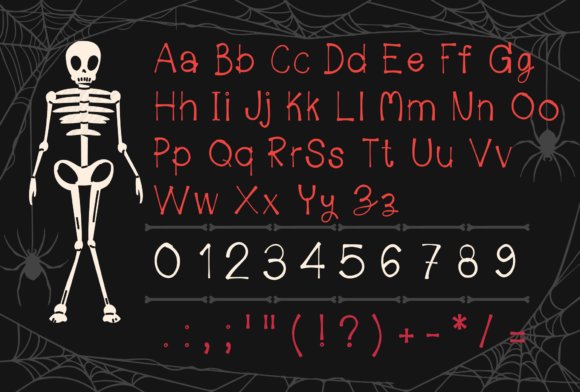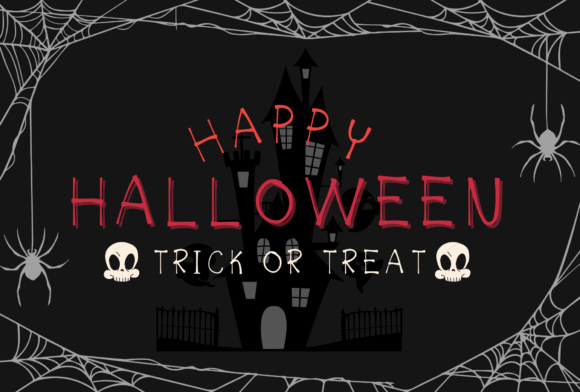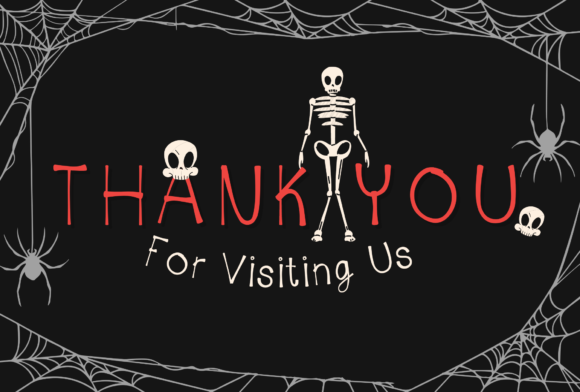
The Spooky Charm of Ghost Bone Font: A Designer’s Delight
I’ll never forget the time I was working on a Halloween-themed project for a client, and I just couldn’t find the right font to capture the spooky essence of the season. The client wanted something that would make their party invitations and social media graphics stand out, but everything I found seemed either too generic or too over-the-top. That’s when I stumbled upon Ghost Bone Font, a thin lettered, spooky, and unique display font that instantly became the perfect fit for the project.
- 👻 Unique and spooky design that’s perfect for Halloween-themed projects
- ✅ Thin lettering that adds an elegant touch to any design
- 💀 Versatile and can be used for a variety of design projects, from party invitations to social media graphics
- 🎃 Easy to read, even in smaller sizes
- ⚠️ Limited use outside of Halloween or spooky-themed projects (may not be suitable for more formal or professional designs)
- 😬 May not work well with certain color schemes or backgrounds (best used with darker or more muted colors)
Legend has it that Ghost Bone Font was inspired by the creepy old mansions and abandoned cemeteries of the American South. The font’s designer, a lover of all things spooky and unknown, wanted to create a font that would capture the essence of the haunted and unknown. And so, Ghost Bone Font was born – a unique and spooky display font that’s perfect for Halloween-themed projects and designs.
| Font Name | Ghost Bone Font |
| Author | Marty Letter Studio |
Q: Is Ghost Bone Font only suitable for Halloween-themed projects?
A: While Ghost Bone Font is perfect for Halloween-themed projects, it’s also versatile enough to be used for other spooky or mysterious designs. However, it may not be suitable for more formal or professional designs.